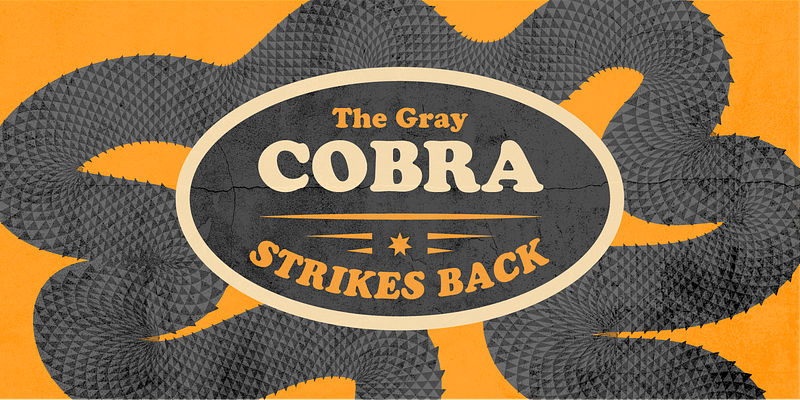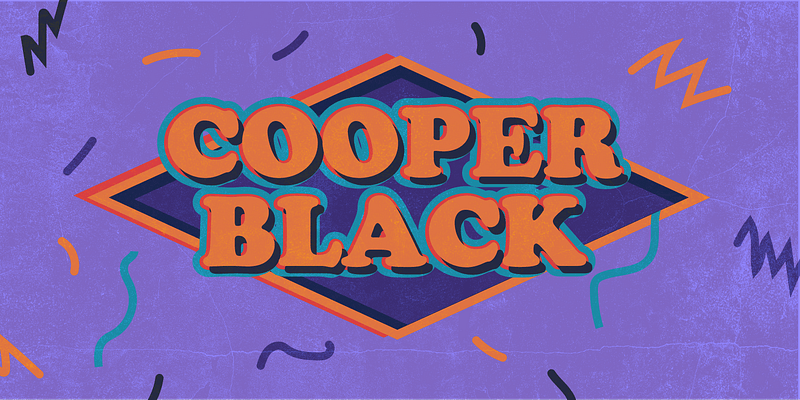
Cooper Black is a very heavy version of Cooper Oldstyle (also known simply as Cooper), an innovative typeface with rounded serifs and long ascenders designed in 1919. The Cooper family was the work of Oswald Bruce Cooper, co-owner of the Bertsch & Cooper design firm in Chicago. Cooper Black was first released by the Barnhart Brothers & Spindler foundry of Chicago in 1922. Oz Cooper was fond of saying that the Black fit the needs of “far-sighted printers with near-sighted customers.” Cooper Black set a trend in ad types which prompted such designers as Fred Goudy (one of Cooper’s early teachers) to follow suit with their own black faces (compare Goudy Heavyface).